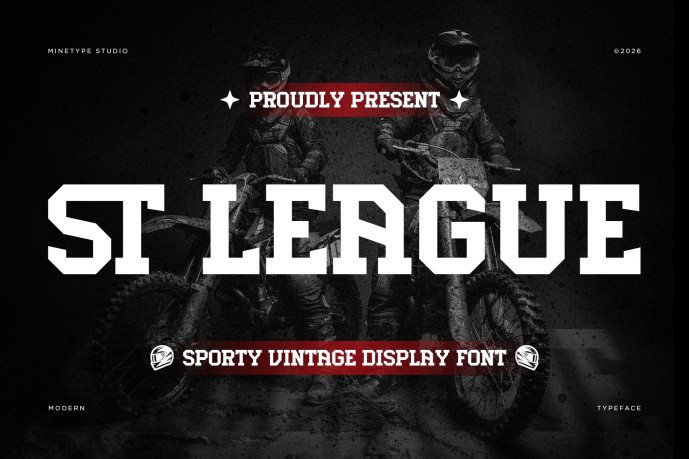
ST League Font – Sporty Vintage Display Font, a bold retro-inspired typeface crafted to capture the spirit of classic sports culture and vintage athletic aesthetics. Combining strong letterforms with timeless collegiate style, this font delivers a powerful and energetic impression perfect for sporty and retro-themed designs.
ST League is ideal for varsity logos, team branding, posters,packaging, headlines, gaming graphics, and vintage-inspired editorial layouts. Its versatile sporty character makes it a perfect choice for projects that need a bold, nostalgic, and competitive look.